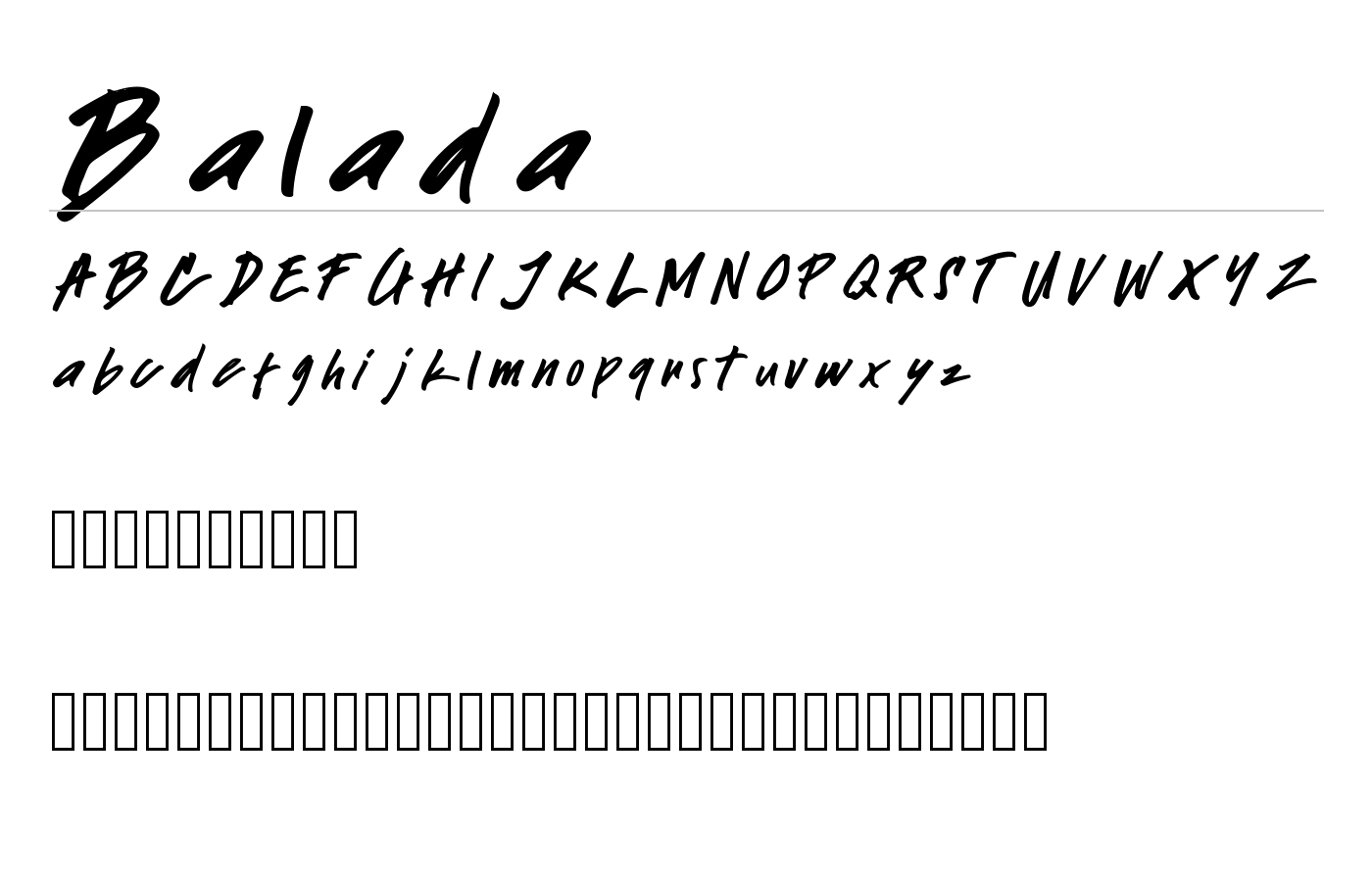
Balada is a lively script font with a bold, energetic feel, featuring sharp, brush-like strokes that mimic dynamic handwriting. Its moderately high contrast and natural flow make it ideal for creative and informal designs, adding a personal touch to logos, posters, and social media graphics. This font shines when you want to communicate vibrancy and individuality with a stylish, hand-crafted look.
Balada Font